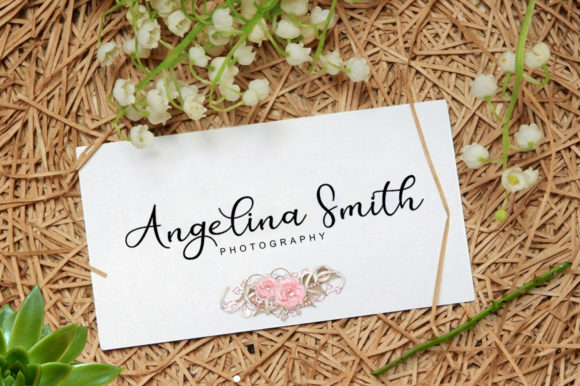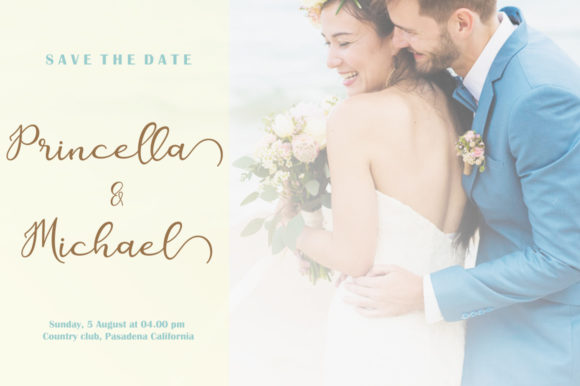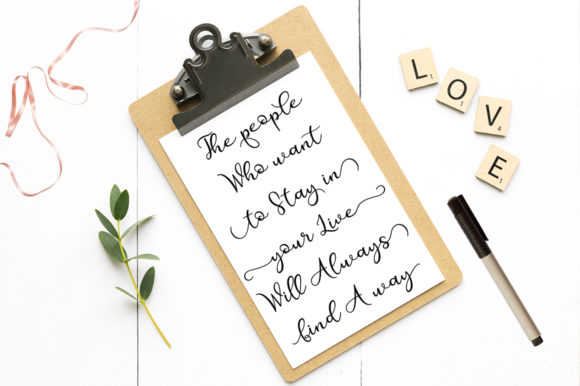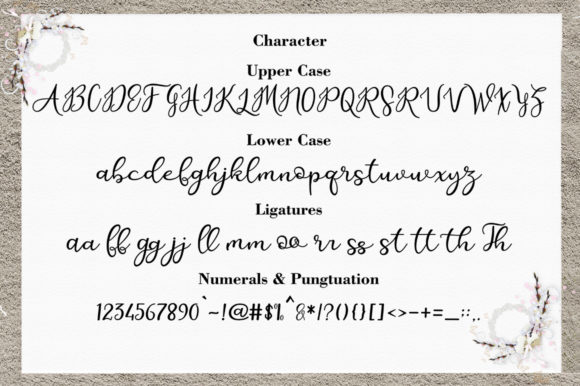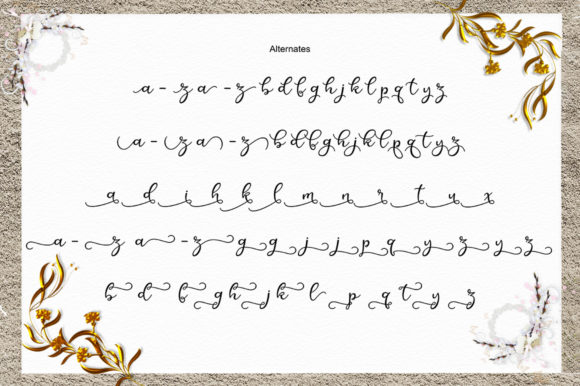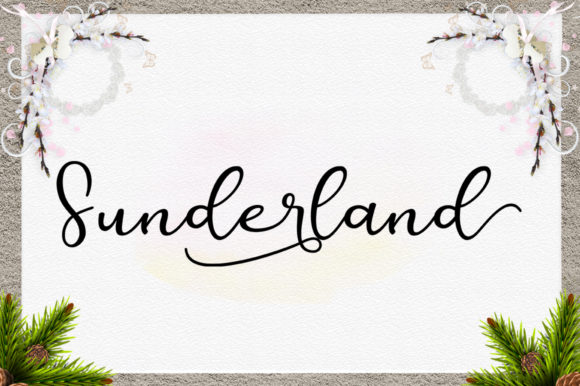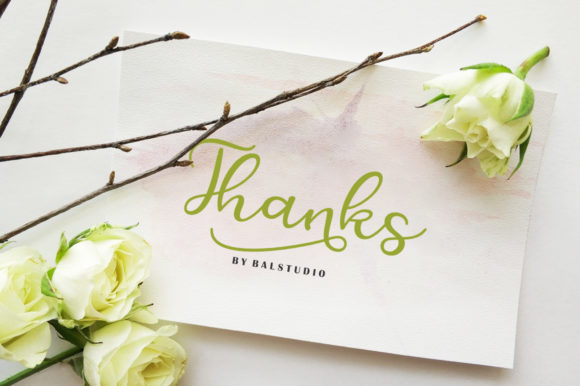
HomeScript FontsSunderland Font Script Fonts Sunderland Font FacebookXPinterestWhatsApp Sunderland Font Poster 2 Sunderland Font Poster 3 Sunderland Font Poster 4 Sunderland Font Poster 5 Sunderland Font Poster 6 Sunderland Font Poster 7 Sunderland Font Poster 8 Sunderland Font Poster 9 About Sunderland Font Sunderland is a bold and fun script font that will add a playful and romantic vibe to your next crafting project. DOWNLOAD NOW People also explored Plant Love Font Cweamy Font MFC Diamas Monogram Sous Sol Font Anggeliana Font Big Bang Font Good Butter Font Flourishes, Dividers and Swirls Font Sweetline Font 267 0 TagsSunderland Font Previous articleMustika FontNext articleAuthenia Font LEAVE A REPLY Cancel reply Comment: Please enter your comment! Name:* Please enter your name here Email:* You have entered an incorrect email address! Please enter your email address here Website: Save my name, email, and website in this browser for the next time I comment. Personal Use Free Propaniac Personal Use Free Read more about this font Karmatic Arcade Personal Use Free Read more about this font Fribash Personal Use Free Read more about this font Covelia Personal Use Free Read more about this font BLOG To increase your work productivity, choose the most readable fonts. In today's fast-paced work environment, where digital communication and information consumption are integral to our daily routines, the choice of fonts can significantly impact... Elegant Wedding Invitation Fonts – Handwritten & Script Fonts Best Fonts for T-Shirt Design – Top 2025 Picks Top 7 Google Fonts Alternatives for Faster and Privacy-Friendly Web Design (2025)